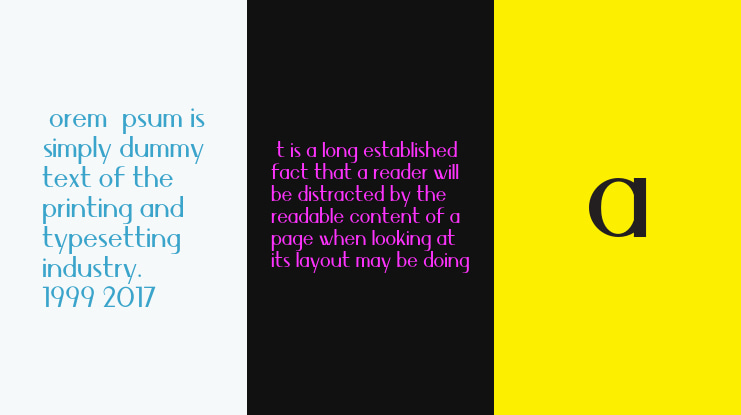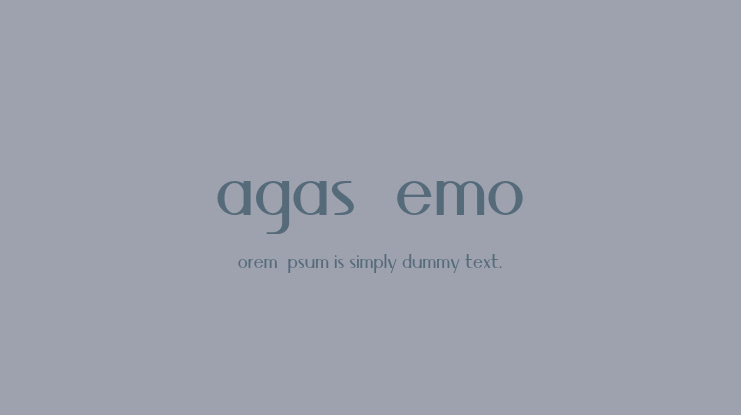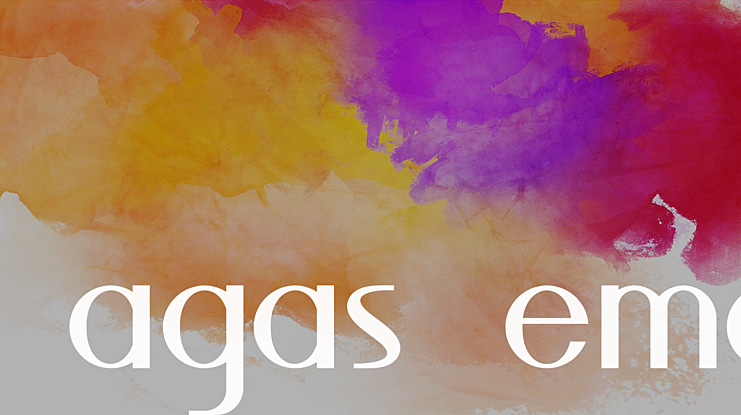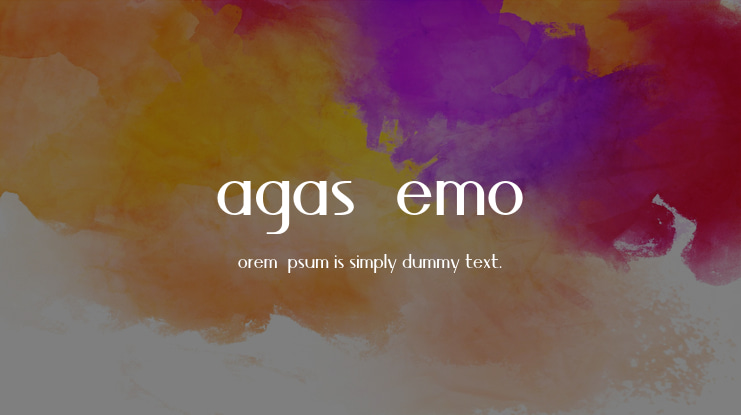
Magas Demo Font
We're introducing the Magas font with a unique shape that's modern and clean. This font has a feature that you can get with different font characters (see preview https://fontbundles.net/evloxx-studio/1129995-magas-typeface-sans-serif#gtmPos=1>mList=14).